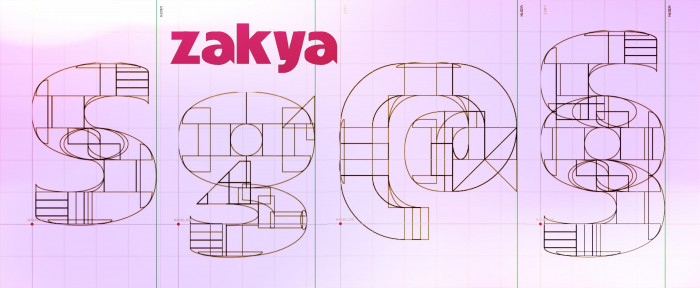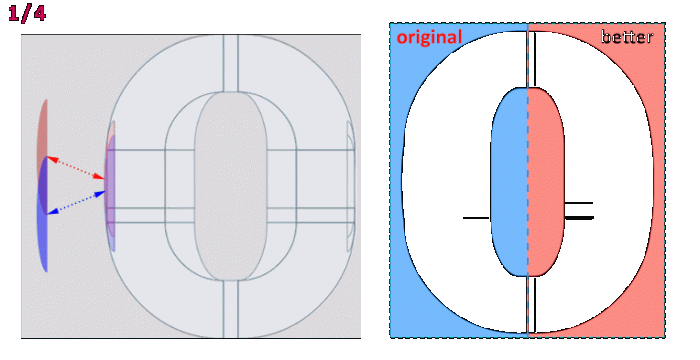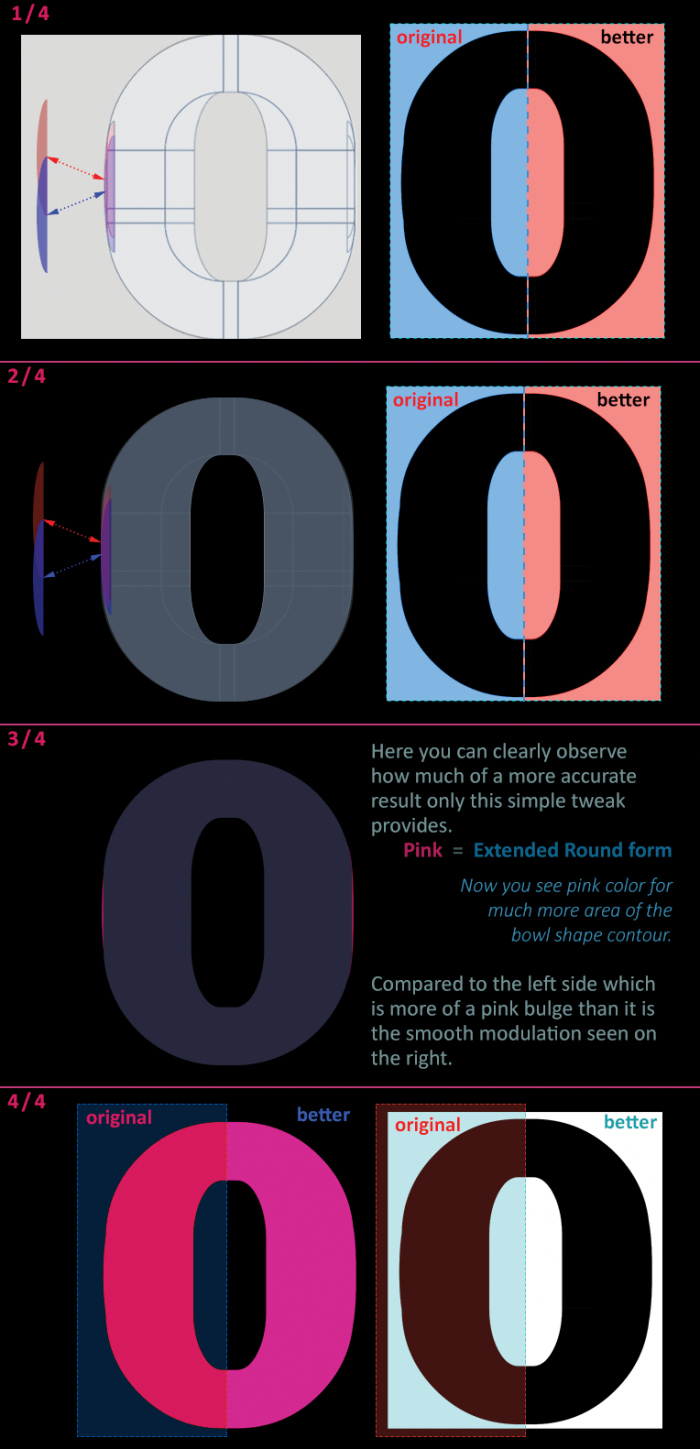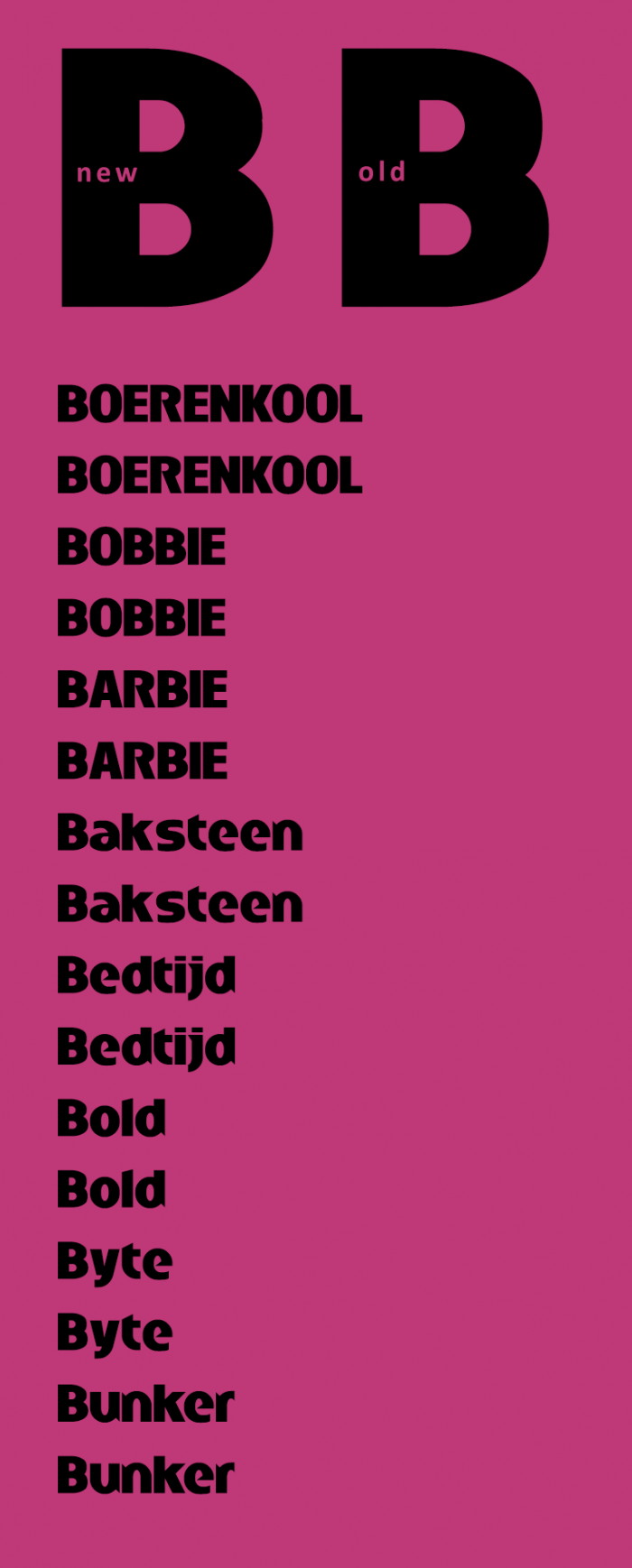
• Black and rounded display font. Made with 2:2 filters, x height = 2 bricks (yes, truly), UC height = 2,5 bricks, and descenders = 0,5 brick. Plus: "ff" and "tt" ligatures placed at the "fi" and "fl" glyphs, and a lot of kern done but more in progress. Enjoy, please.
A lovely font with some lovely (and clever) samples~
Such a wonderful classic bold style... reminiscence of a long foregone era with typographic painting, litho's and old books.
@Sed4tives: Thanks for your always kind words, compa! But I don't understand why you said "reminiscence of a long foregone era with typographic painting, litho's and old books." I'm a little slow at these things and I don't know if you're referring to a pre- or post-Bauhaus or Art Deco style that we see here lately... I'm sure it's my fault.
The Gill Sans font (with whose bold version some small similarities with my "zakya" could be found) was designed in the 1930s and only shares that temporal reference with fonts inspired by Bauhaus or Art Deco. With it, Eric Gill offered a groundbreaking conception in typographic design that has lasted until today and has elevated him as one of the great typographers in History.
Yes, but its far greater level of personalized and stylish elements and design features aren't very "New Typography" style. But show much more resemblance with for example lettering in old children's book covers.
BTW why is the the Tilde horizontally flipped?
Oops! My fault, @Sed4tives. I was stupidly testing what the glyph design would look like if it were like this with the ripple inverted... and then I didn't change it back to its original state!... Age don't forgive. Thank you so much for pointing it out so kindly, I'll change it right away. (How clueless I aaam! 🤦🏻‍♂️)
More humanist capital letters B and Eszet.
Both have more natural and longer curve transitions and better optically curve to stroke weight balance. Also removed brick edge overshoot from your Eszet's top part (highlighted in red).
There is no “B” in symmetry, and it isn't spelled "Bathematically".
Not a letter that is happy to be assembled from identical parts.
— Optical refinements in new glyph proposals:
• Redined bowl (curvature) shape / size
• Stroke weight / modulation
• Optically reduced joints